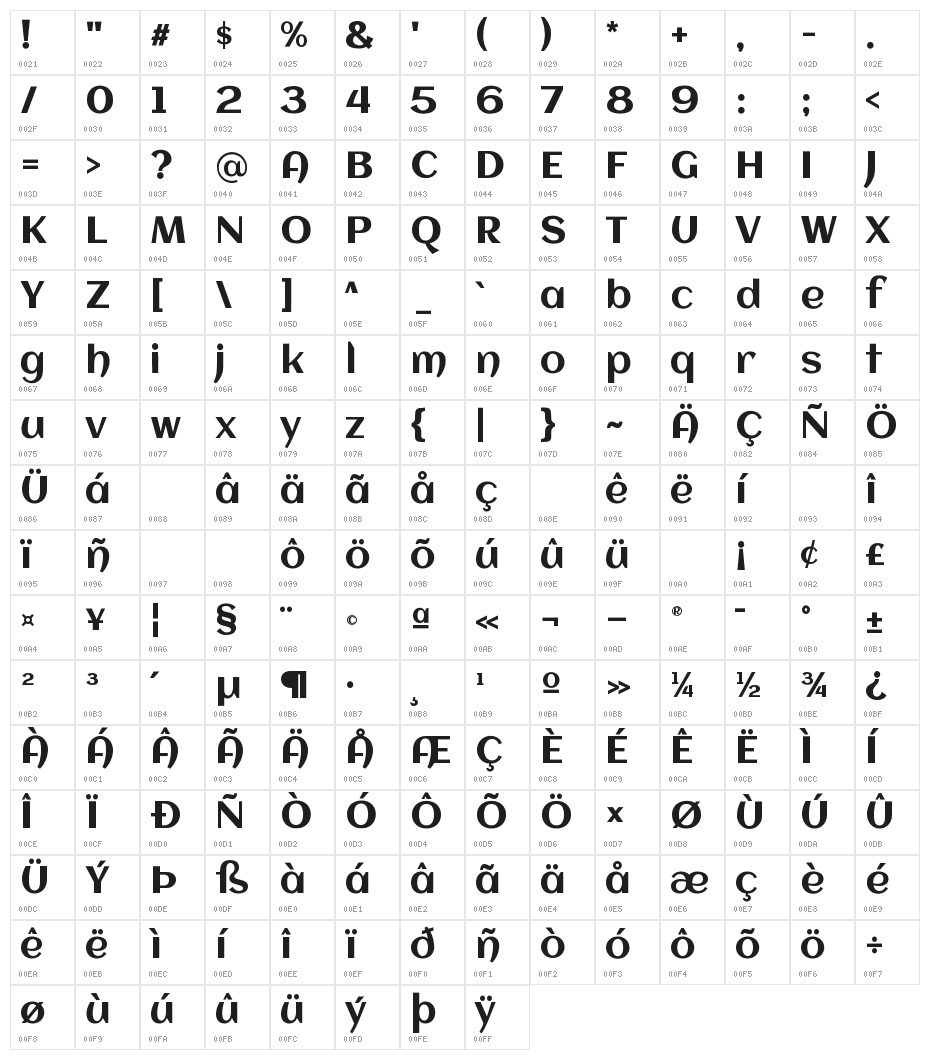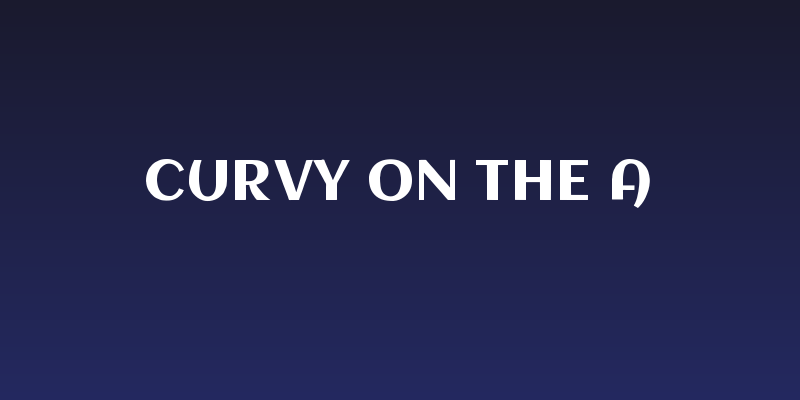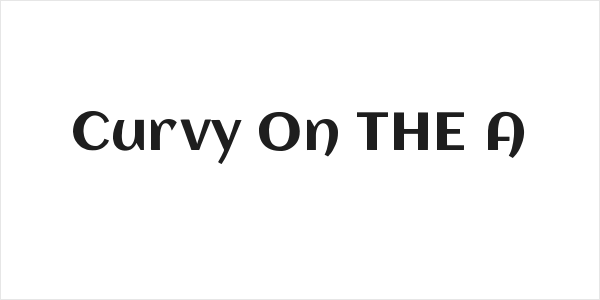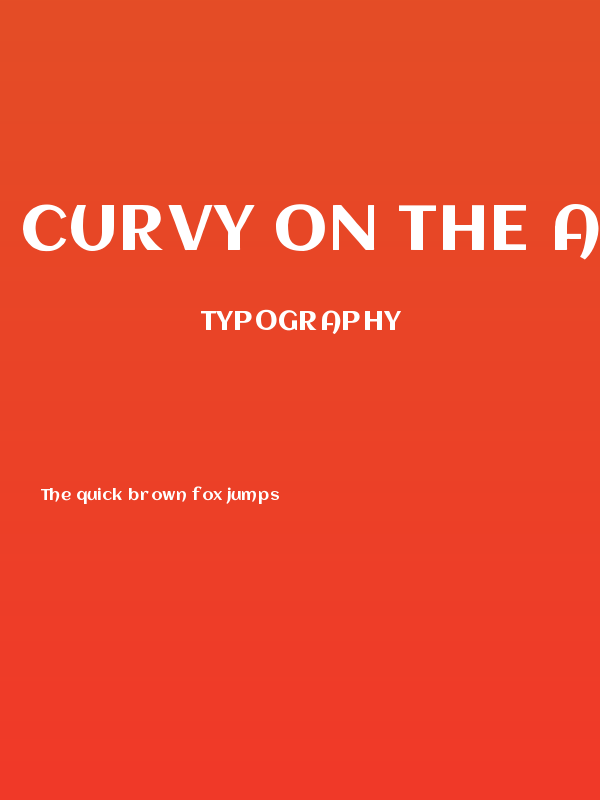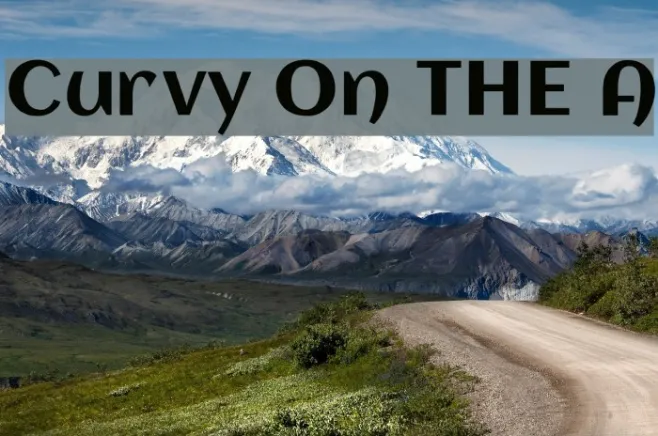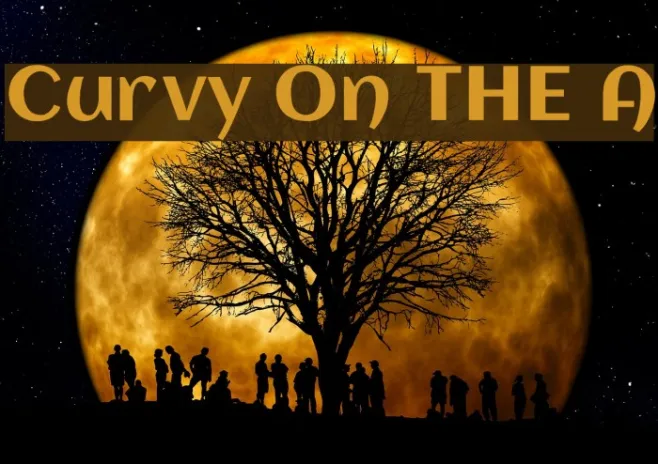
Curvy On THE A Font
Curvy On THE A Description
This font features a unique blend of bold and curvy elements, creating a distinctive and eye-catching appearance. The uppercase letters are robust and slightly condensed, with a playful twist that adds character to each glyph. The lowercase letters maintain a consistent style, with smooth curves and a harmonious flow. Numbers are bold and clear, ensuring readability. Special characters are designed with the same attention to detail, making them stand out while remaining cohesive with the overall design. This font is perfect for projects that require a touch of creativity and boldness.